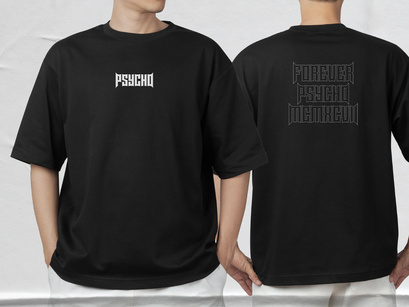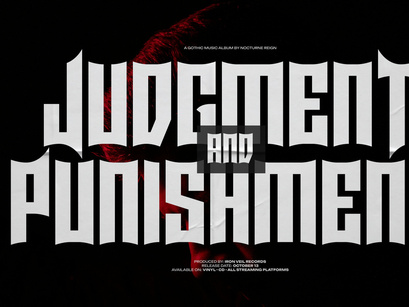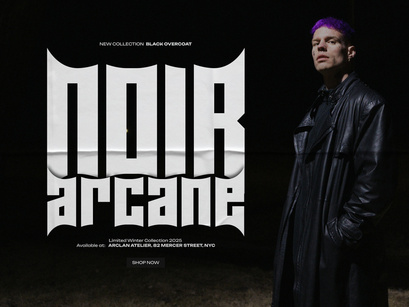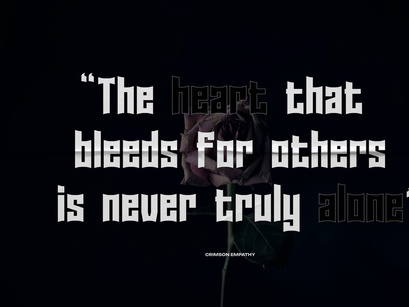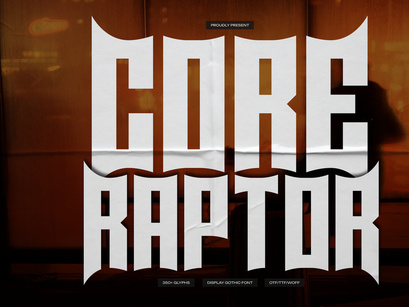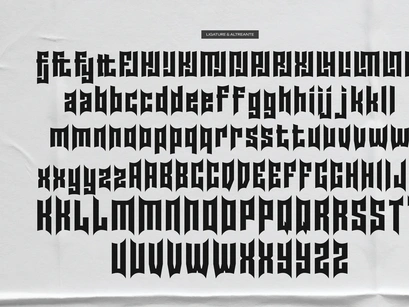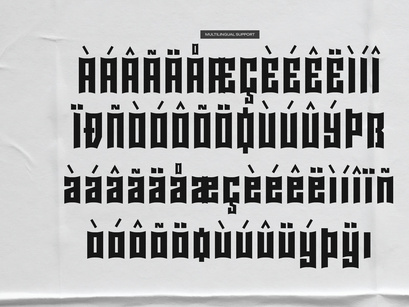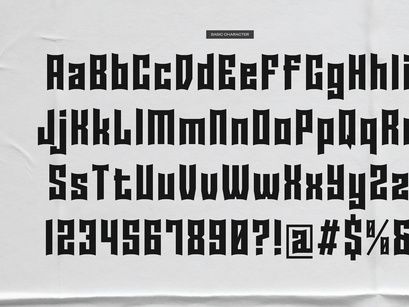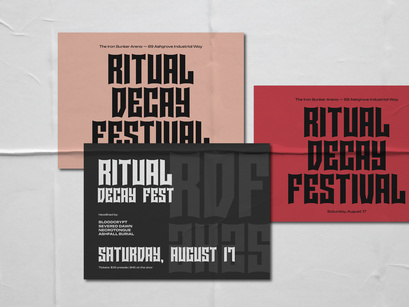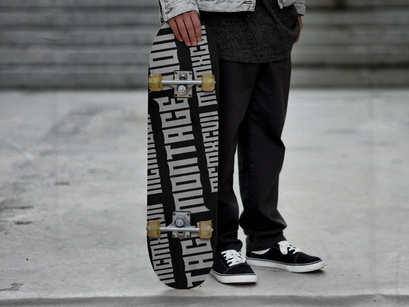
Core Raptor | Display Gothic Font
Core Raptor | Display Gothic Font, from Gracetypestudio, suitable for any projects such as: logos, branding projects, homeware designs, product packaging, mugs, quotes, posters, shopping bags, t-shirts, book covers, name card, invitation cards, greeting cards, label, photography, watermark, special events, and all your other lovely projects that need a Display Gothic Font taste.